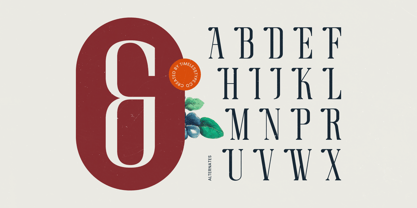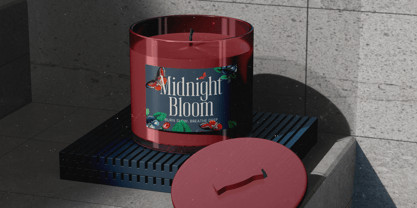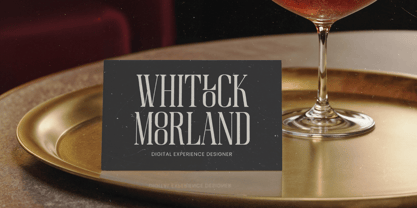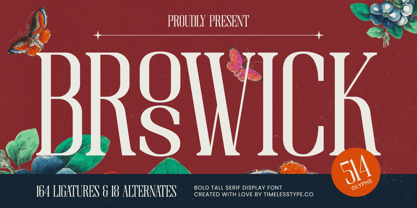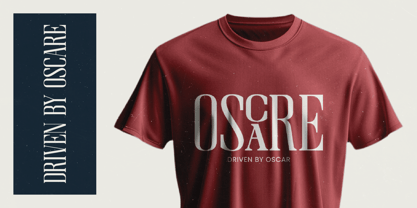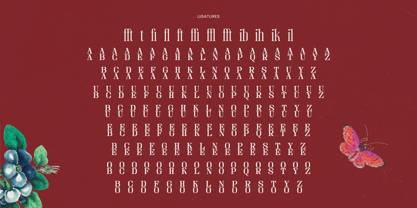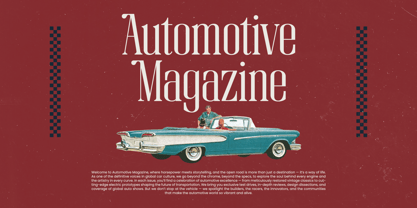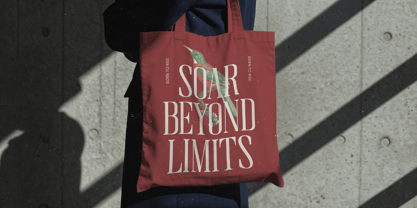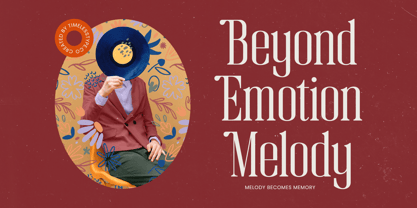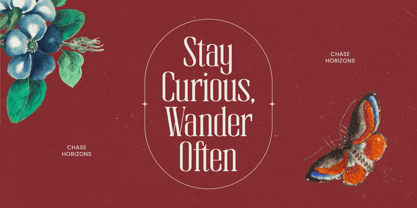
Broswick
The Broswick Font Family was designed by Heru Utama Putra and published by Timelesstype Studio. Broswick contains 2 styles and family package options.
Broswick - Bold Tall Serif Display Font , from Timelesstype, Suitable for any projects such as: logos, branding projects, homeware designs, product packaging, mugs, quotes, posters, shopping bags, t-shirts, book covers, name card, invitation cards, greeting cards, label, photography, watermark, special events, and all your other luxury and beautiful projects that need a Luxury Serif taste.